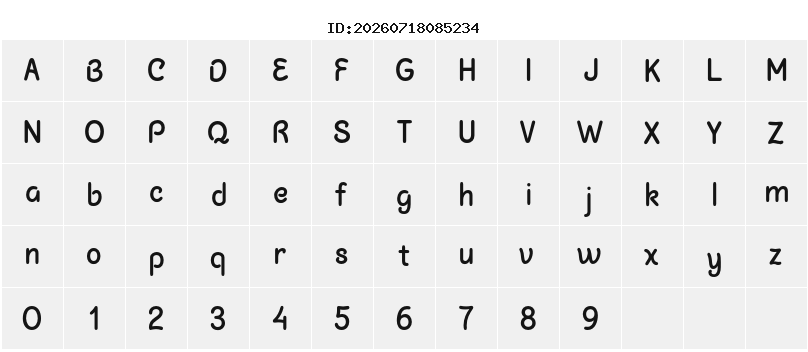
Chalk Marks Preview
• Font Name: Chalk Marks
• Designer: Ana Parracho
About Chalk Marks.otf
Chalk Marks.otf is a modern, elegant sans-serif font designed for ultimate readability and visual harmony. Perfect for branding, headlines, web design, and print materials.